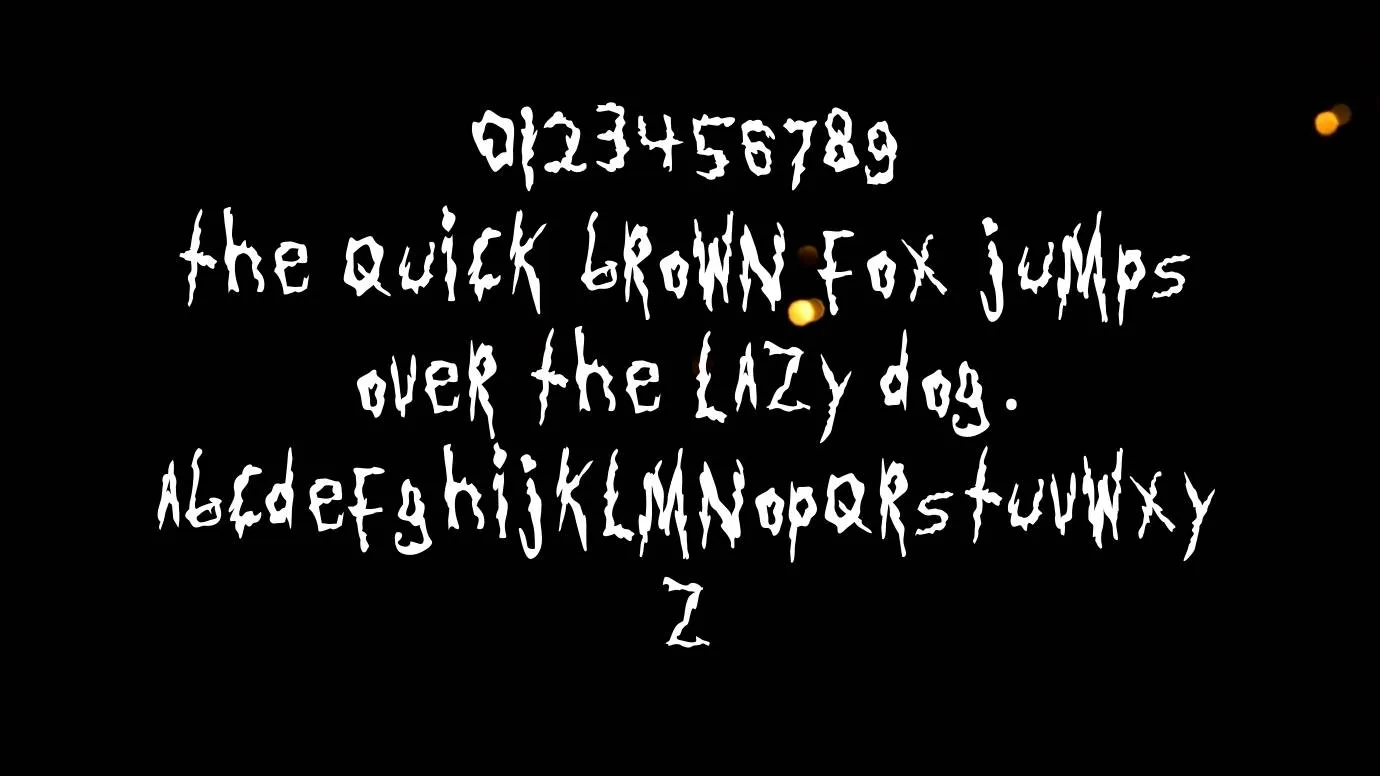
Rick And Morty Font is a great way to show your love for the popular TV show. This unique font was created by artist and designer Mr. Jonizaak. This typeface belongs to the category of the fancy typeface.
The Rick And Morty typeface has been used in various merchandise and media associated with the show, including t-shirts, posters, and even the show’s opening credits. If you’re a fan of Rick And Morty, then this font is a must-have.
View of Rick And Morty Font
This typeface includes stylish glyphs with a fun and playful feel. The Rick And Morty typeface is perfect for any project that needs a touch of whimsy or quirkiness. It contains both uppercase and lowercase letters, as well as numbers and a few special characters.
| Name | Rick And Morty Font |
| Designer | Mr. Jonizaak |
Is Rick And Morty Font easy to read?
The Rick And Morty typeface is a fun and playful font that is easy to read. It includes both upper and lower case letters, as well as numbers and a few special characters.
What type of style the Rick And Morty typeface is?
This typeface belongs to the category of the fancy typeface.